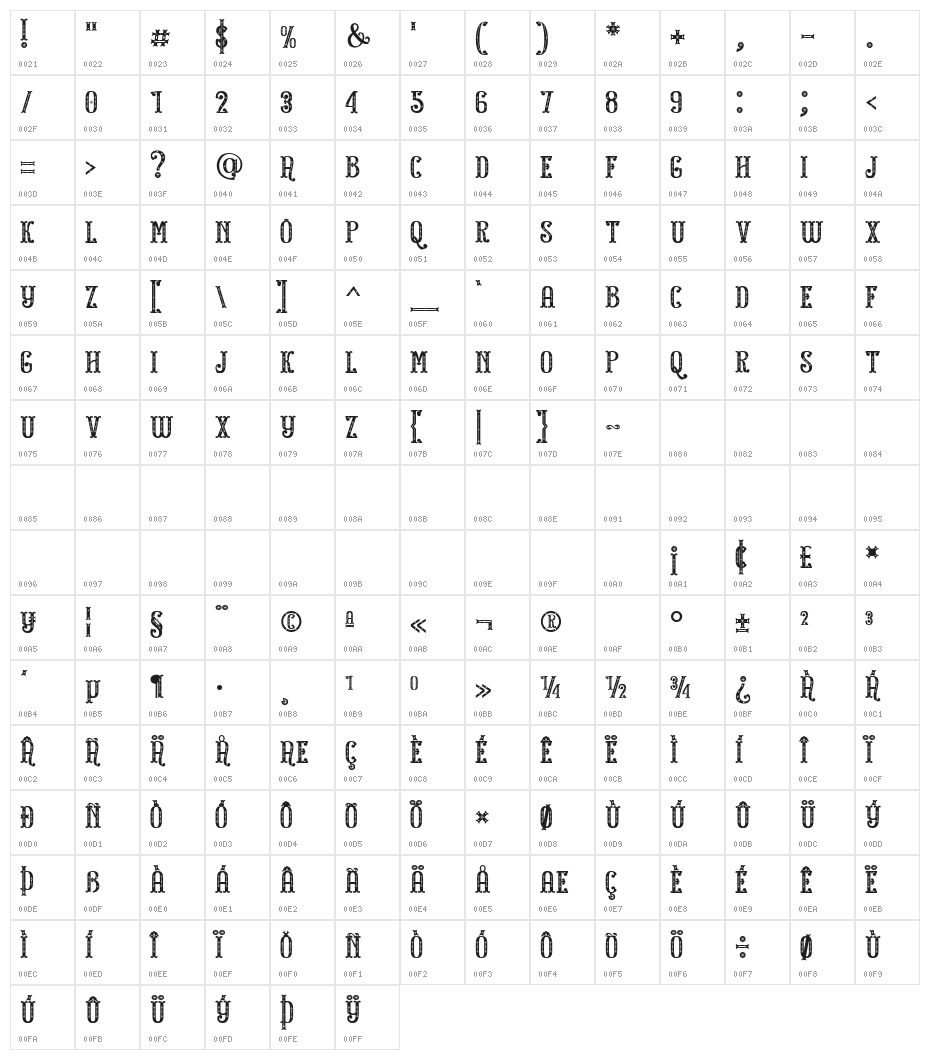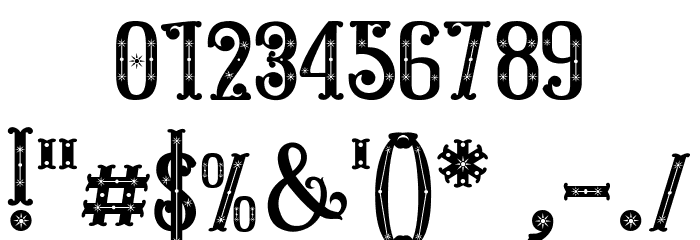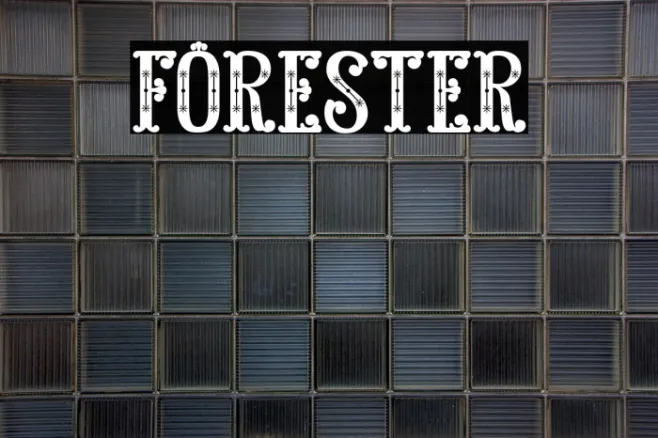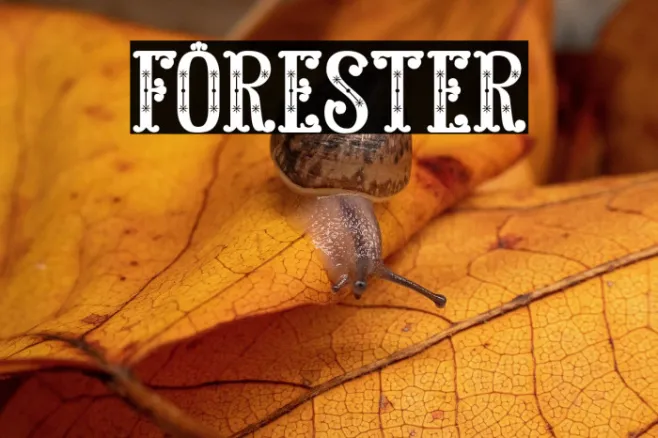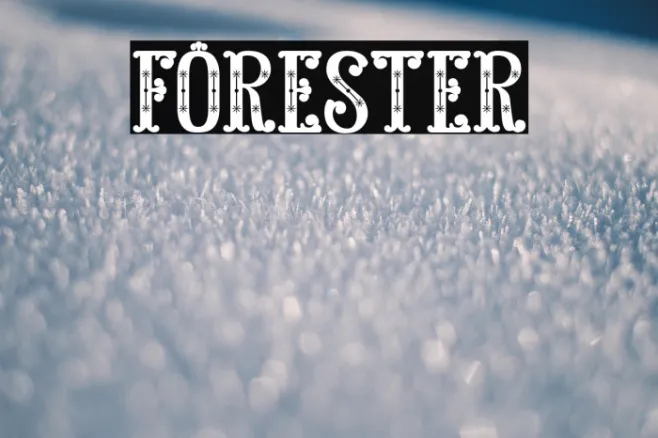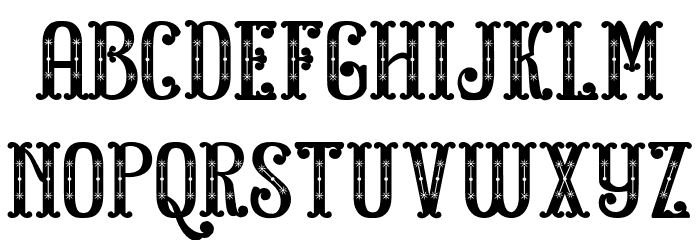
FORESTER Font
FORESTER Description
This font features a bold, decorative style with intricate star patterns embedded within each character. The uppercase letters are distinct with flourishes that add a whimsical touch, making them stand out. The lowercase letters maintain the same decorative elements, ensuring consistency across the typeface. The numerals are equally ornate, with the same star motifs, providing a cohesive look. Special characters are designed with similar embellishments, enhancing the overall decorative theme. This font is ideal for projects that require a playful yet sophisticated aesthetic.
| Proposed Projects | Ideal for event invitations, festive posters, branding for creative businesses, and any project requiring a whimsical, decorative touch. |